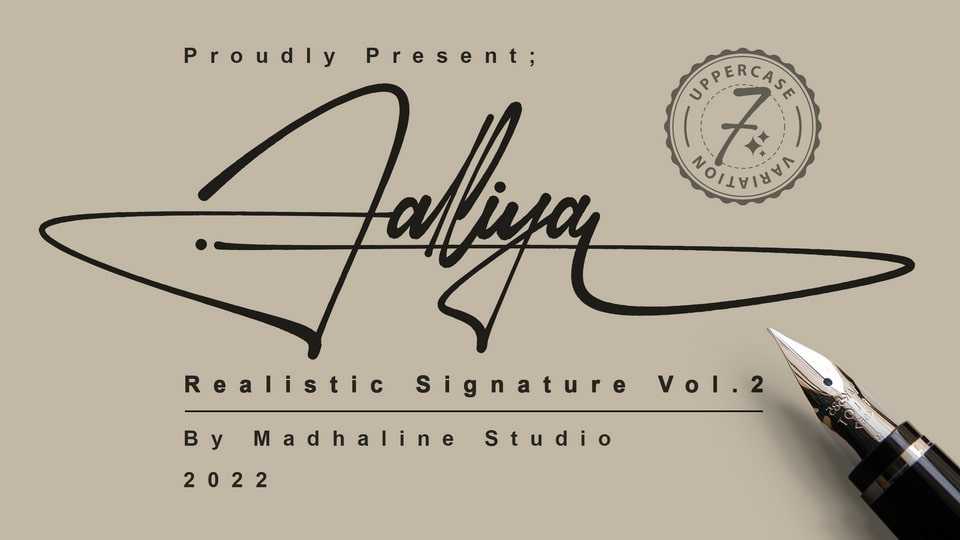
Download Jalliya font, a realistic signature typeface that has its own uniqueness and style. Jalliya is handwritten manually, so it has the impression of a true signature.
Designer: MadhalineStudio